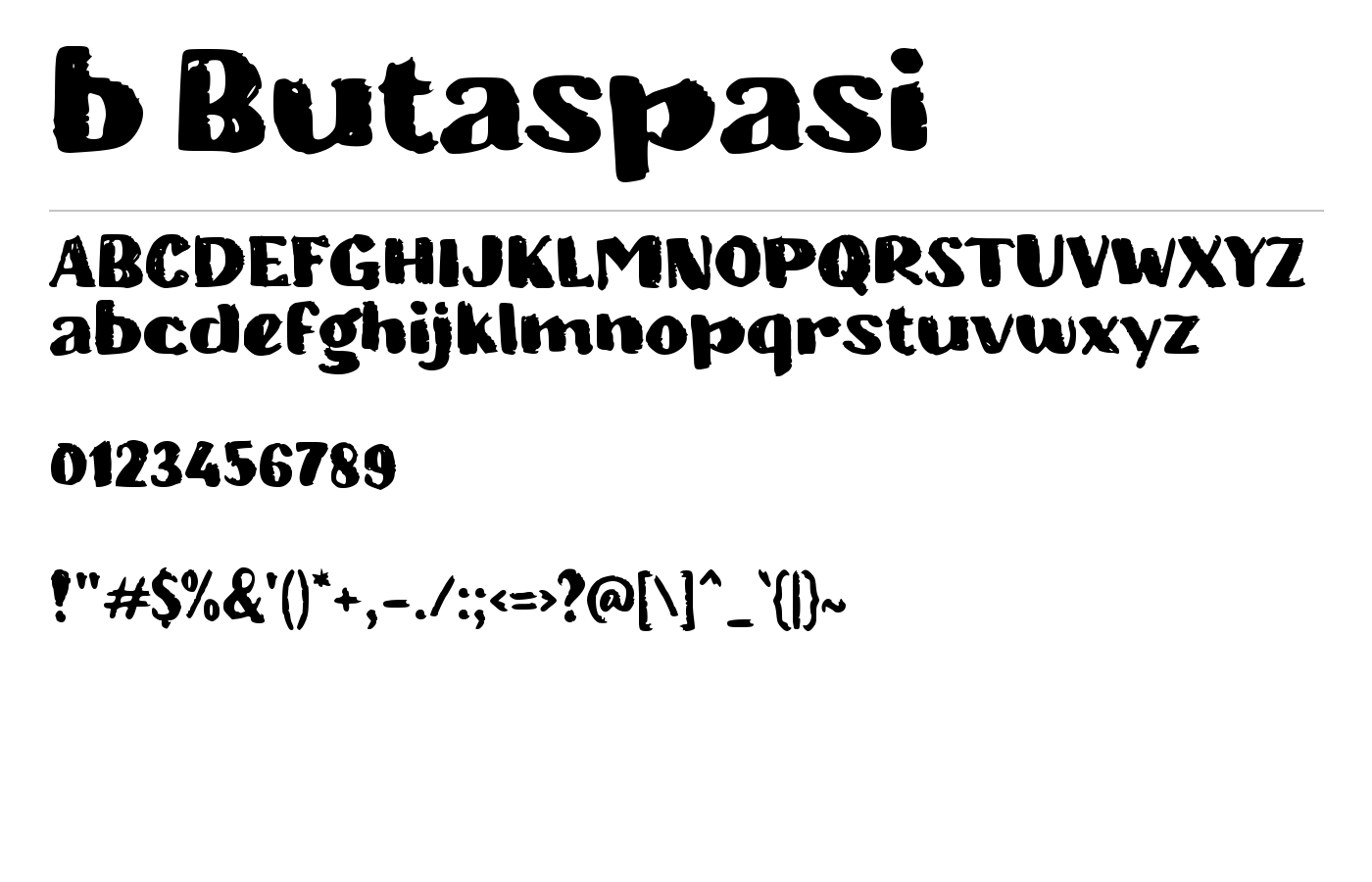
b Butaspasi is a bold, playful serif font with a textured, hand-crafted feel that adds character and a touch of whimsy to any design. Its strong weight and uneven edges make it ideal for eye-catching headlines, posters, and creative branding where a unique, artistic vibe is desired. This font works well for projects aiming to convey a friendly, informal, and imaginative personality.
b Butaspasi Font